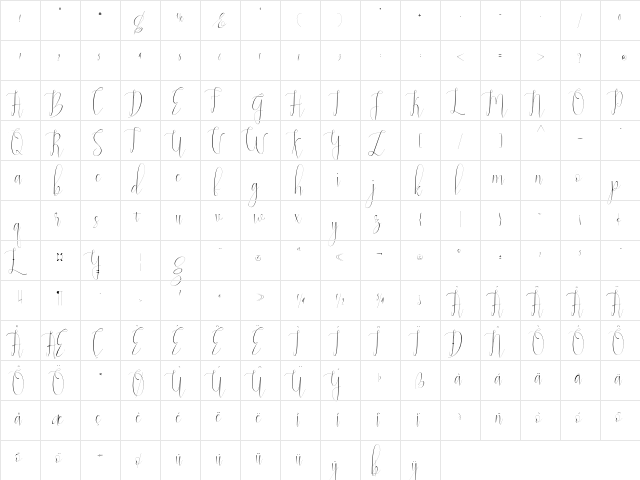
natasya Regular
Design Context for natasya Typeface
natasya is a composed and adaptable typeface that performs quietly and consistently across a wide range of design contexts.